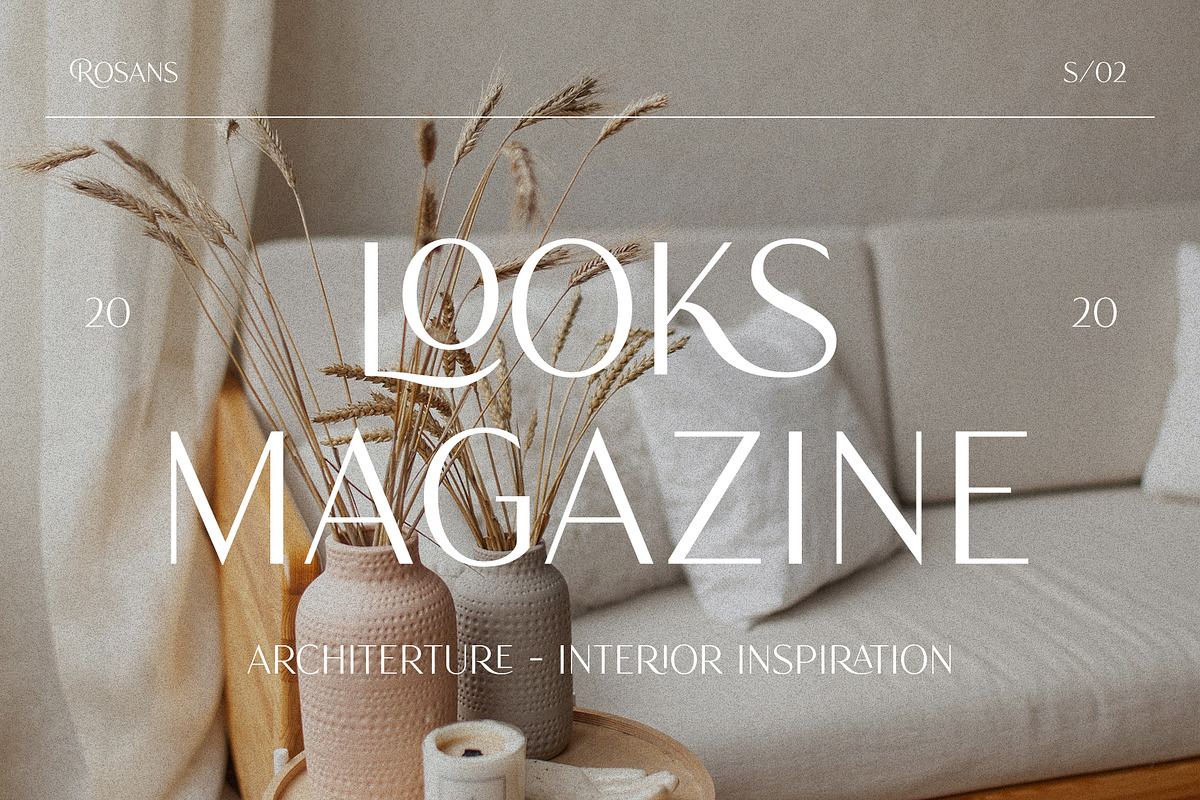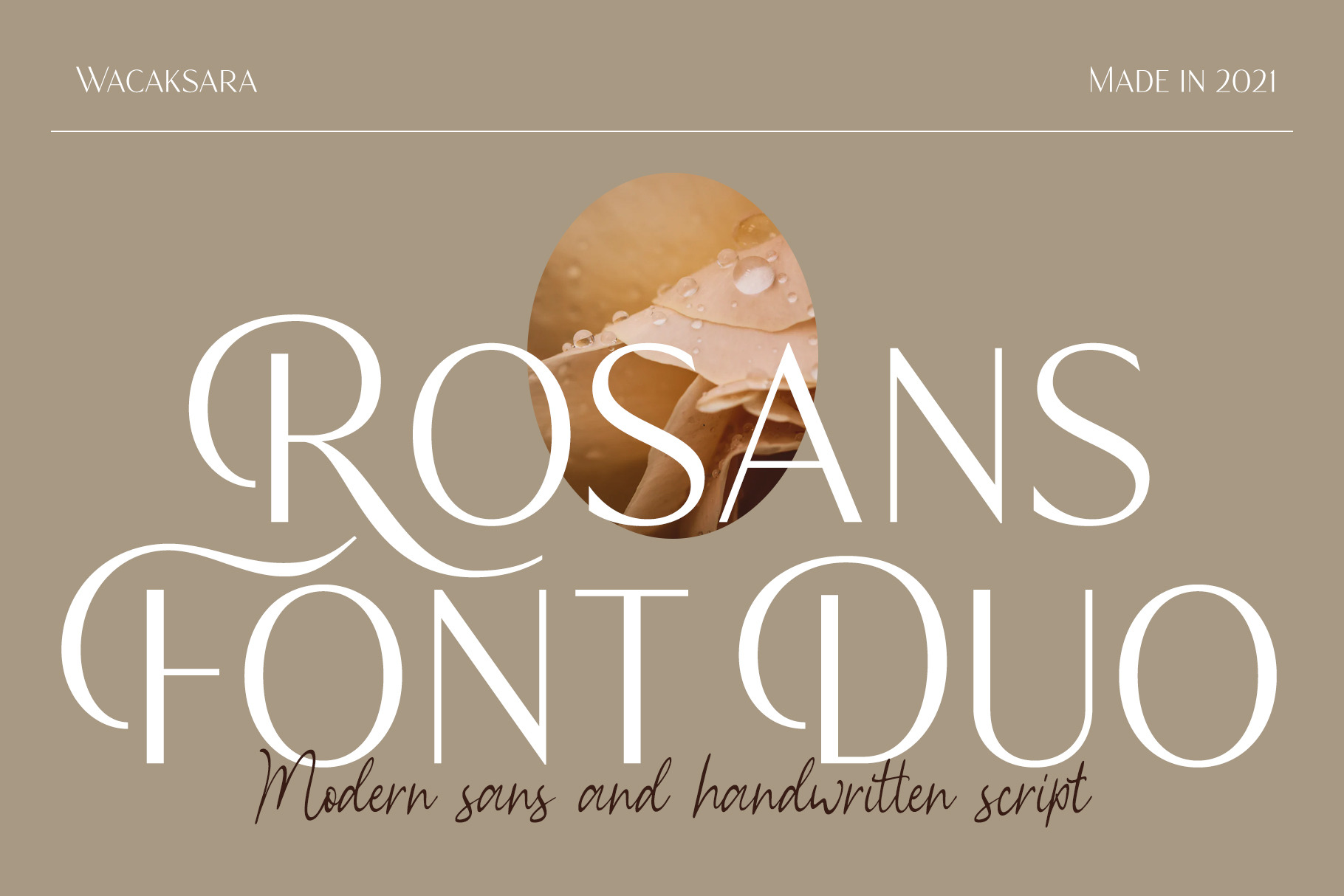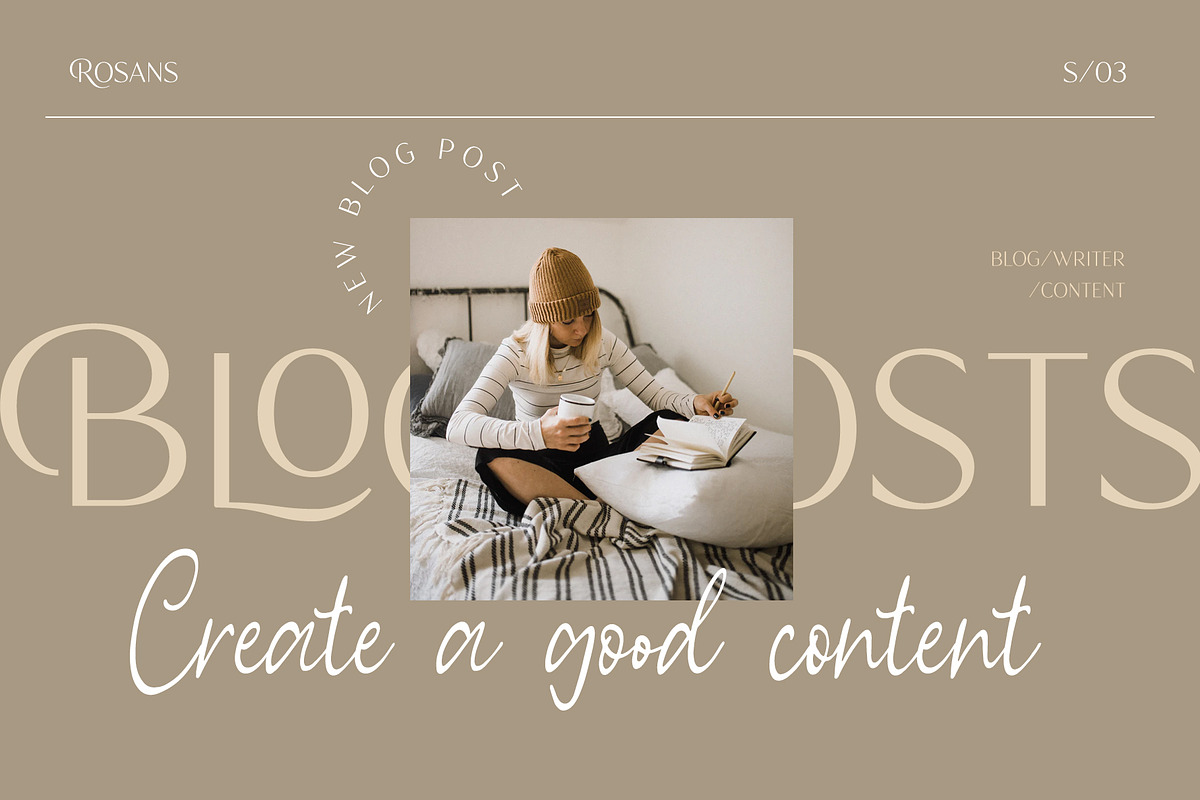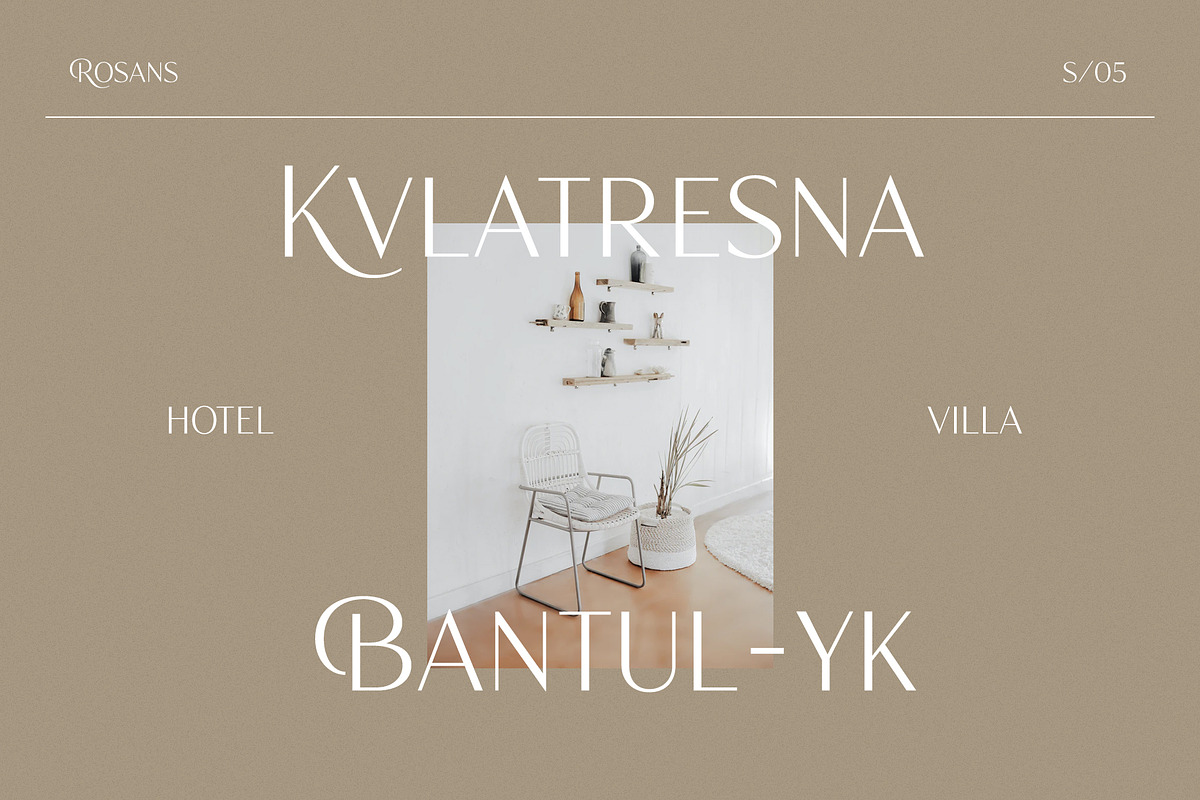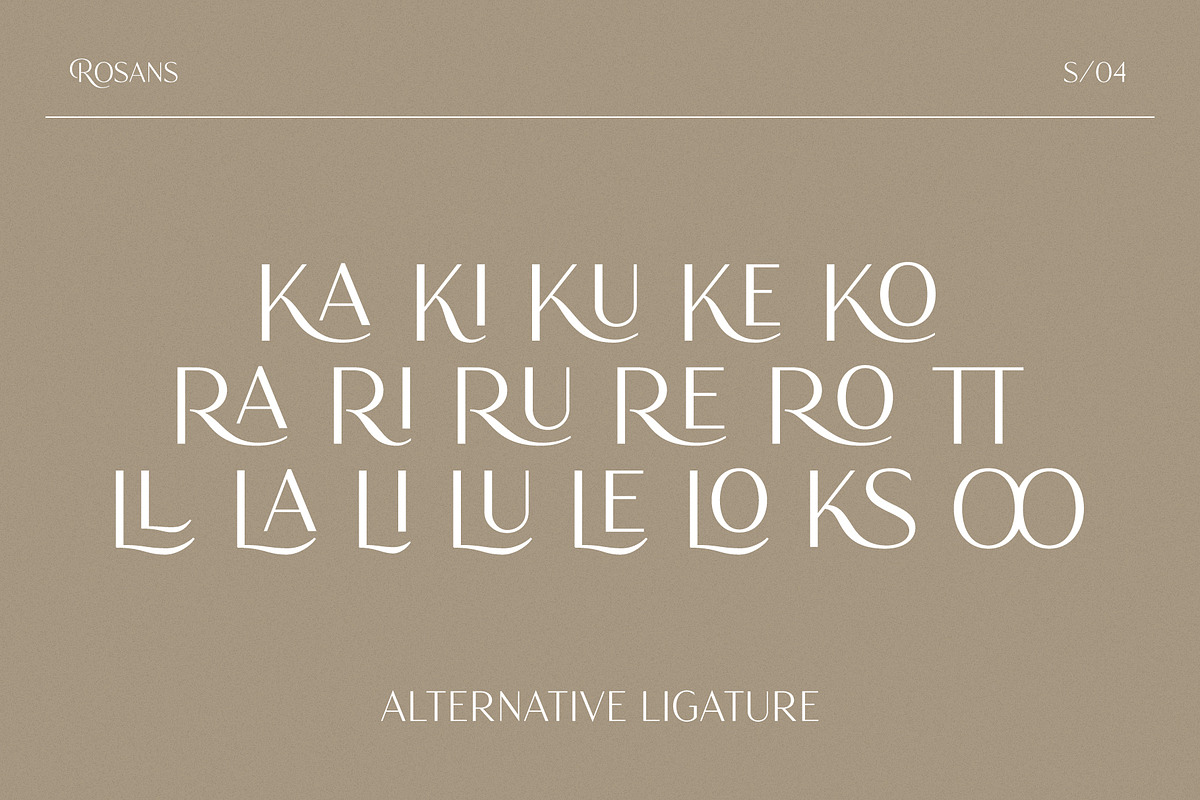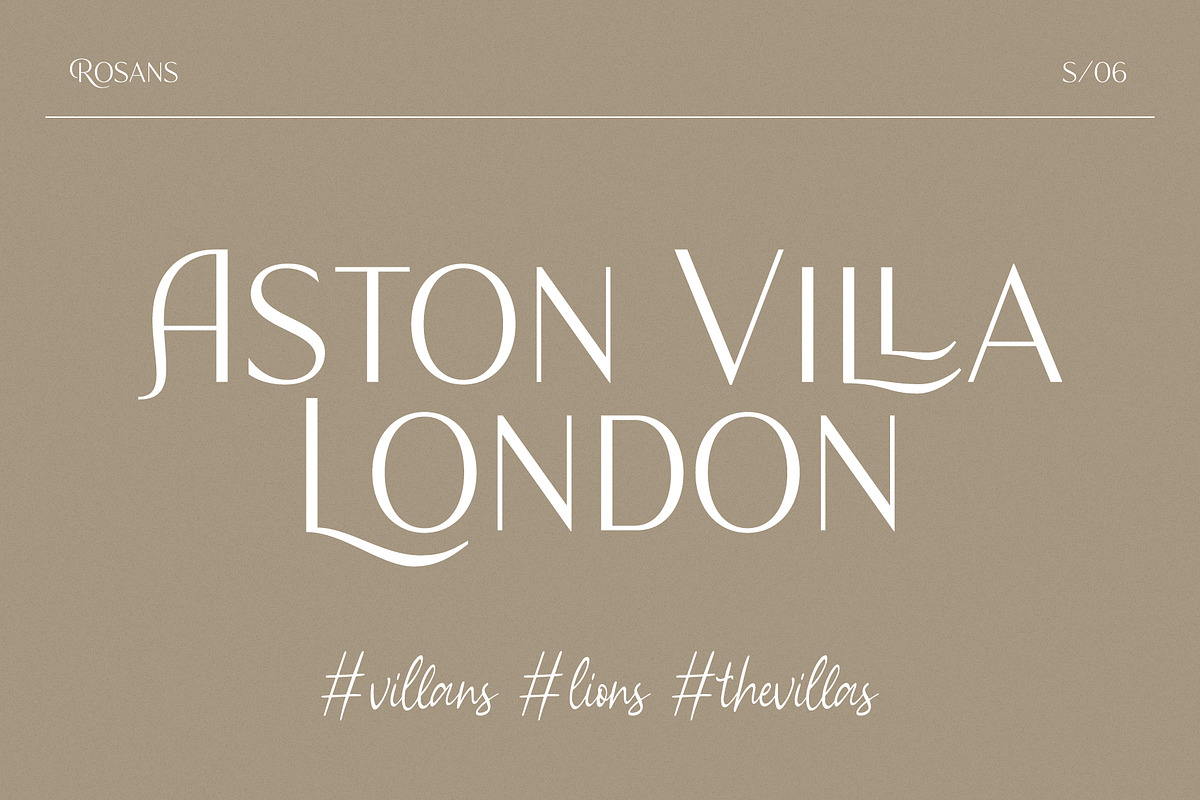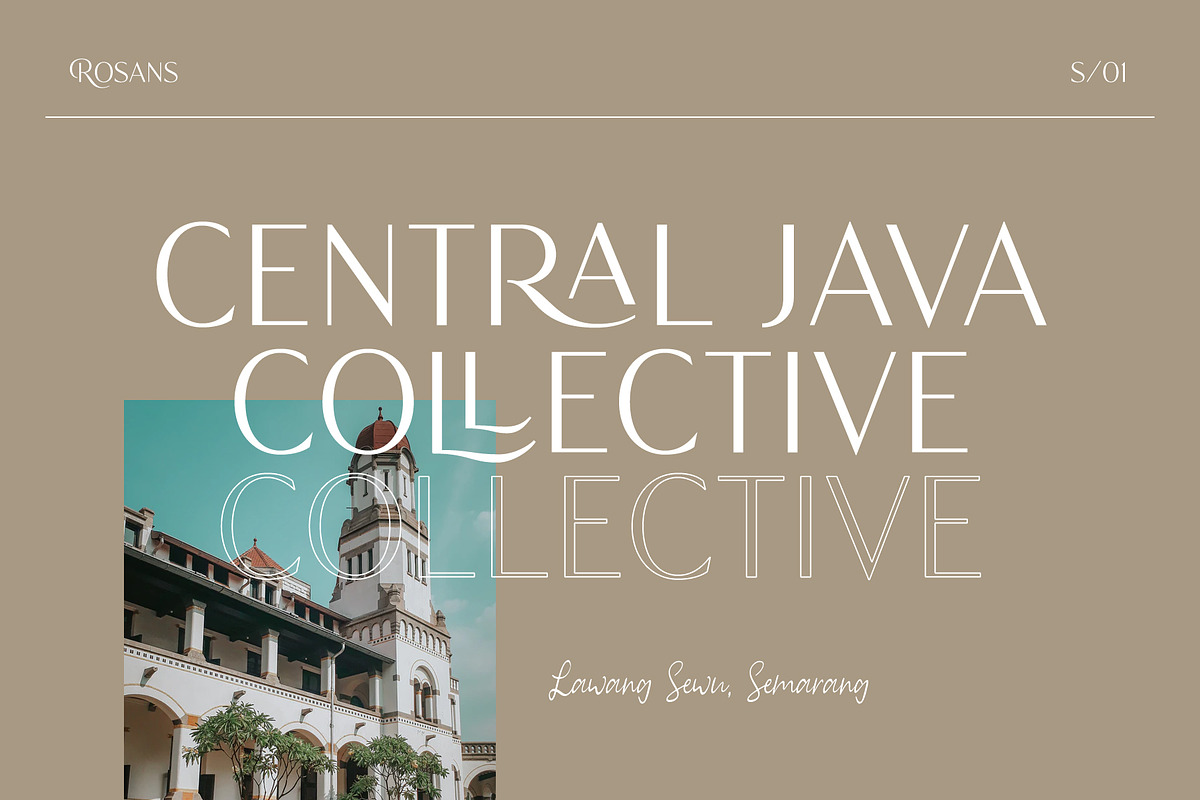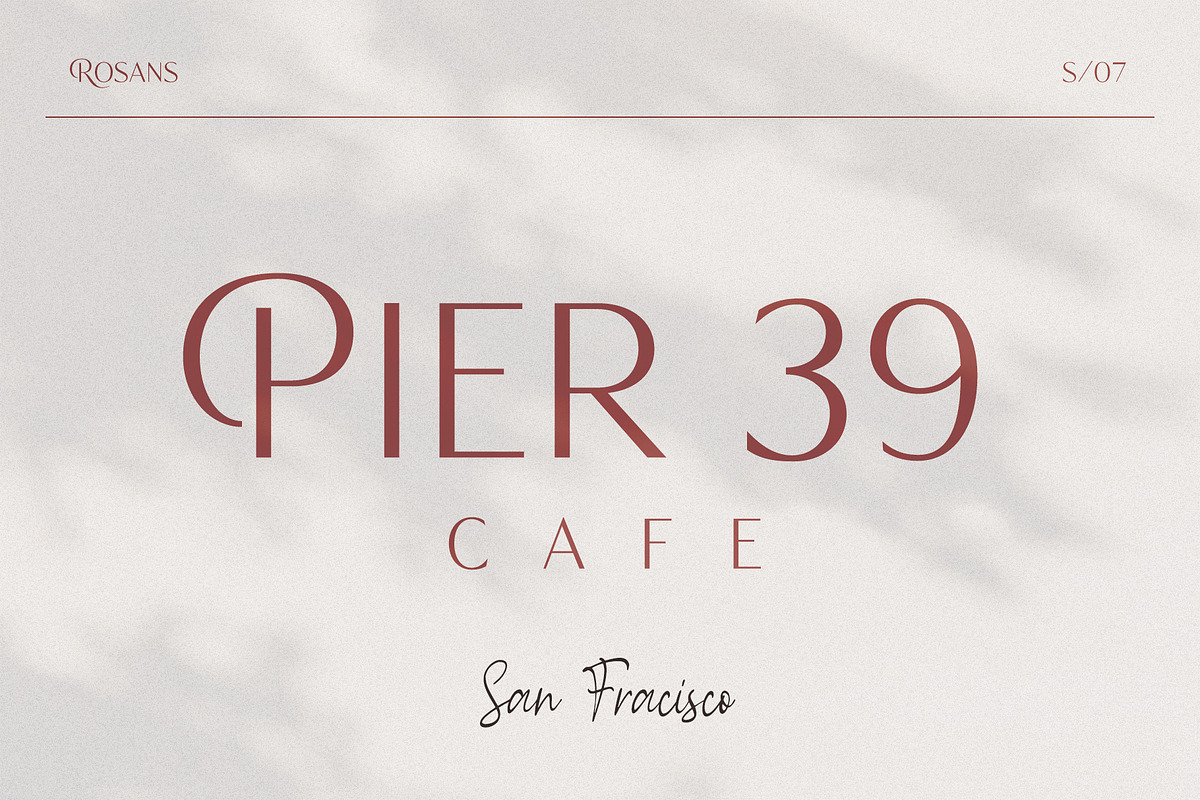
Rosans - Font Duo
Luxury sans serif combine with hand writing script font is great combos to level up your next creative project such as logos, printed quotes, invitations, cards, product packaging, headers, Logotype, Letterhead, Poster, Apparel Design, Label, and etc.
Rosans - Font Duo comes with 2 styles also with uppercase, lowercase, numerals, punctuations, common ligatures to let you customise your designs.